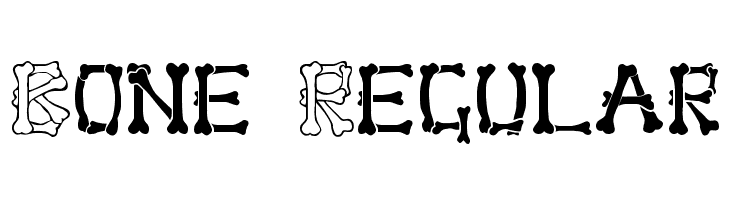
A playful, bone-like decorative font with bold, rounded elements.
A playful, bone-themed font with bold outlines and a three-dimensional effect.
A decorative bone-themed font with a shadow effect, perfect for spooky designs.
A bold, bone-themed font ideal for spooky or Halloween projects.